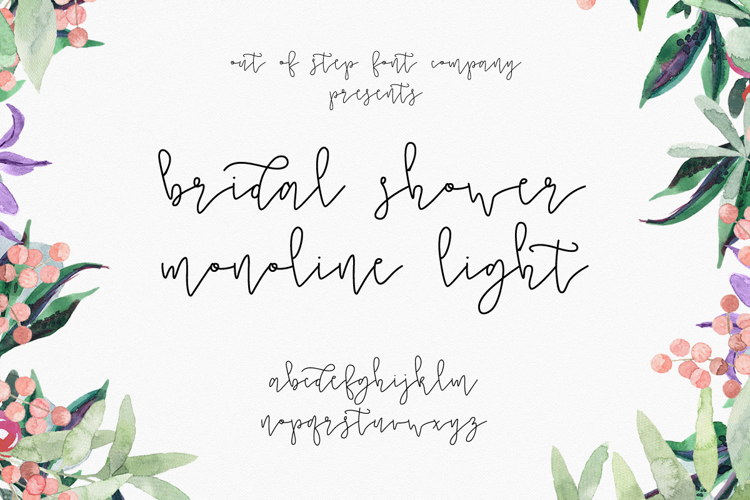
Bridal Shower Monoline Script Light Font
Bridal Shower Monoline Script Light is a new hand-drawn monoline script font based on a commission that I received recently. It's perfect for bridal showers, weddings, baby showers, or anything else requiring a fancy light script. Bridal Shower Monoline Script was designed to solve a number of connected script issues without using alternates or ligatures.